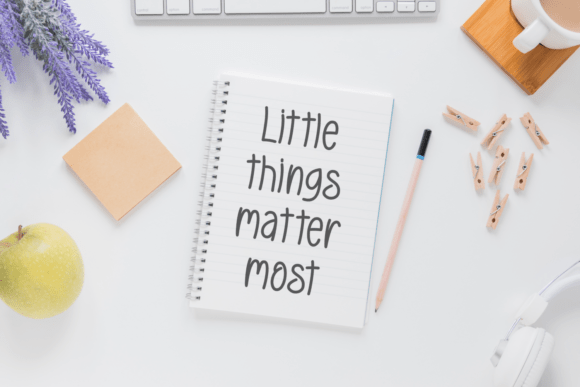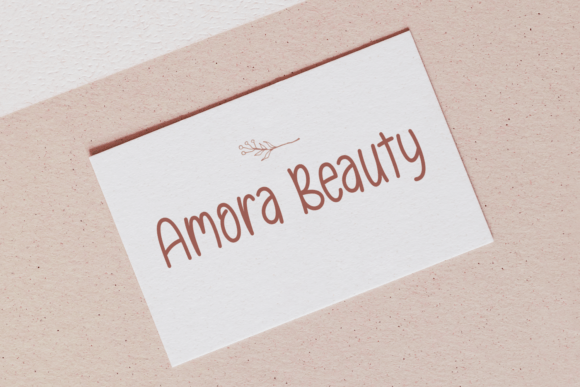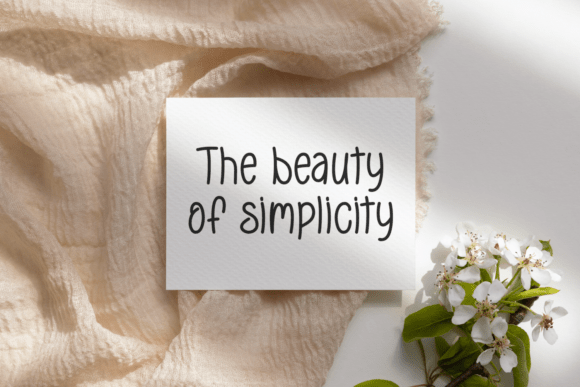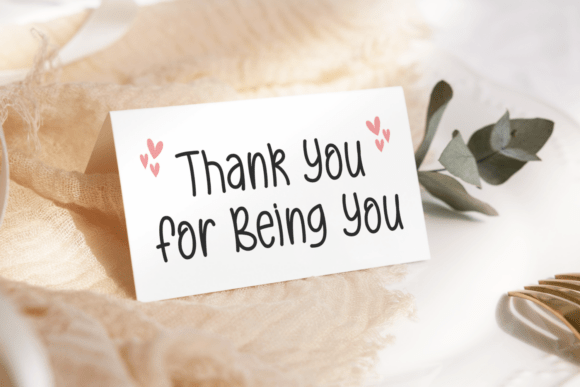
Introduction to Beautinote Font Font
Fonts play a crucial role in design, and the Beautinote Font font is a typeface that brings both character and versatility to any project. Whether you’re working on a branding project, a website, or a print design, the Beautinote Font font offers a unique style that can elevate your work.
Introducing Beautinote, a handwritten font that artfully combines elegance with simplicity.
With its clean, minimalist design, this girly font is the perfect choice for adding an element of soft handwriting to your work Exhibiting an unmistakable aesthetic, the character of Beautinote is enhanced by its playful, rounded script.
The Beautinote Font font is more than just a typeface – it’s a design tool that helps you communicate your message with style and clarity. Its unique character set and versatile design make it suitable for a wide range of applications, from elegant invitations to bold headlines.
With its carefully crafted letterforms and balanced proportions, the Beautinote Font font ensures readability and visual appeal across all mediums.
The Beautinote Font font stands out with its unique design, exceptional readability, and versatility across various design applications.